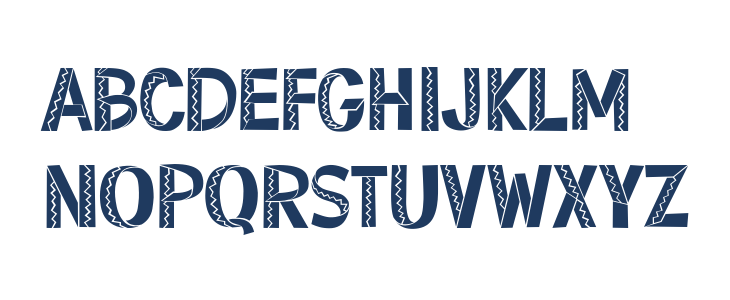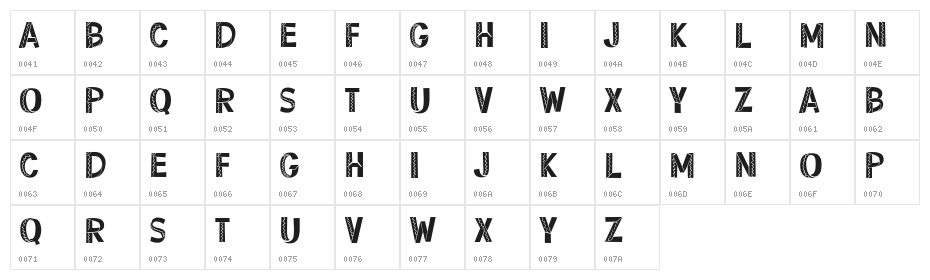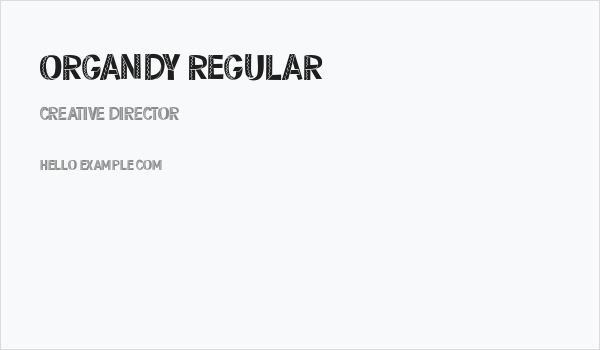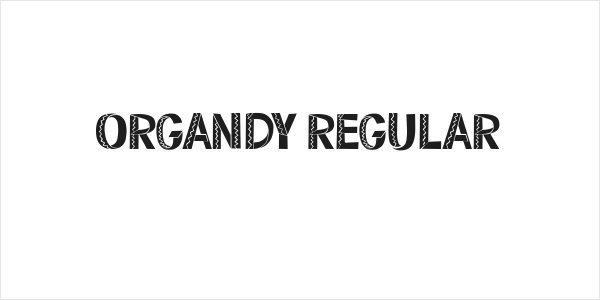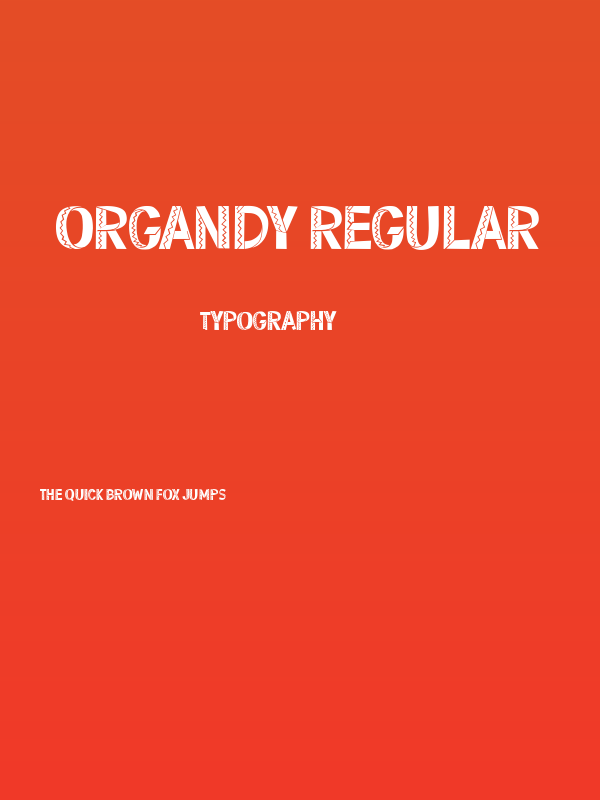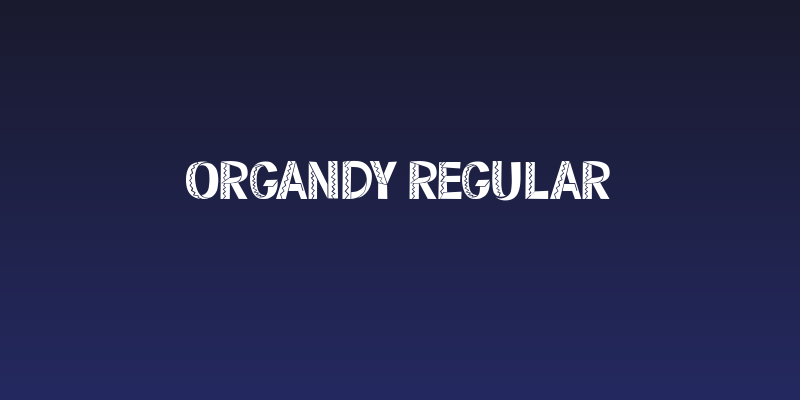
Organdy Regular Font
Organdy Regular Description
A bold, decorative sans-serif typeface featuring geometric letterforms with unique zigzag and stitched patterns inside the strokes, creating a playful and eye-catching effect. The characters are uppercase only, with consistent stroke thickness and a modern, artistic flair.
| Overall Style | Decorative, Modern, Playful |
| Proposed Projects | Posters, event flyers, branding for creative industries, childrenΓ’β¬β’s books, packaging, party invitations. |